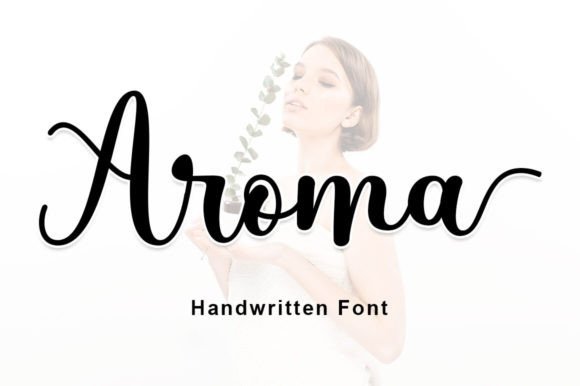
Introducing Aroma Font, the epitome of elegance and timelessness in the world of handwritten fonts. This exquisite script font, created by rotterlabstudio, is the ultimate choice for those seeking to captivate their audience with eye-catching logos, memorable branding, and inspiring quotes.
With Aroma Font, every letter exudes a unique and beautiful touch, breathing life into your designs like never before. Its graceful and flowing strokes effortlessly convey a sense of sophistication and creativity, making it a must-have for modern websites that aim to stand out from the crowd.
Imagine the impact of Aroma Font on your logo. Its impeccable curves and intricate details will instantly elevate your brand's visual identity, leaving a lasting impression on your target audience. Whether you're a small business owner or a seasoned designer, this font is the secret ingredient to creating a logo that truly represents your brand's values and personality.
But Aroma Font's versatility doesn't end there. It effortlessly enhances any branding project, giving your business a professional and polished look. From business cards to packaging, this font adds a touch of refinement and elegance that sets you apart from competitors.
Quotes have the power to inspire and motivate. With Aroma Font, your quotes will not only resonate with your audience but also visually engage them. Its delicate and handcrafted style lends a sense of authenticity and warmth to every word, leaving a lasting impact on readers.
Downloading Aroma Font means unlocking a world of creative possibilities. Its extensive character set includes a wide range of ligatures and swashes, allowing you to experiment and customize to your heart's content. Let your imagination run wild as you bring your designs to life with this captivating script font.